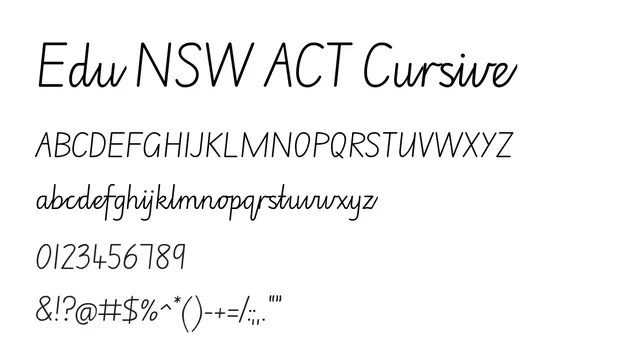
A connected cursive educational font designed for teaching flowing handwriting with natural letter connections and elegant letterforms.
Ideal for cursive handwriting instruction, formal writing practice, and educational materials teaching connected script. Maintains clarity while showing proper letter joins.
Pairs effectively with a clean sans-serif like Lato for body text in mixed-typeface educational layouts.